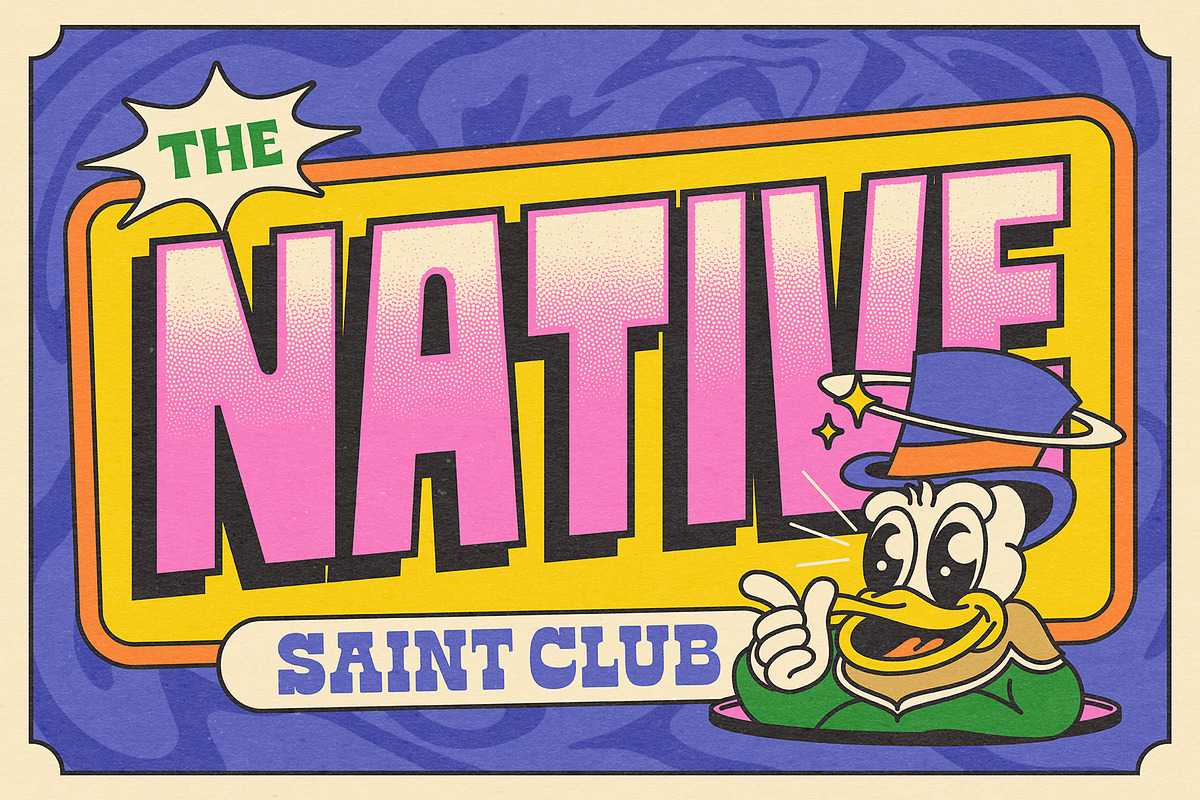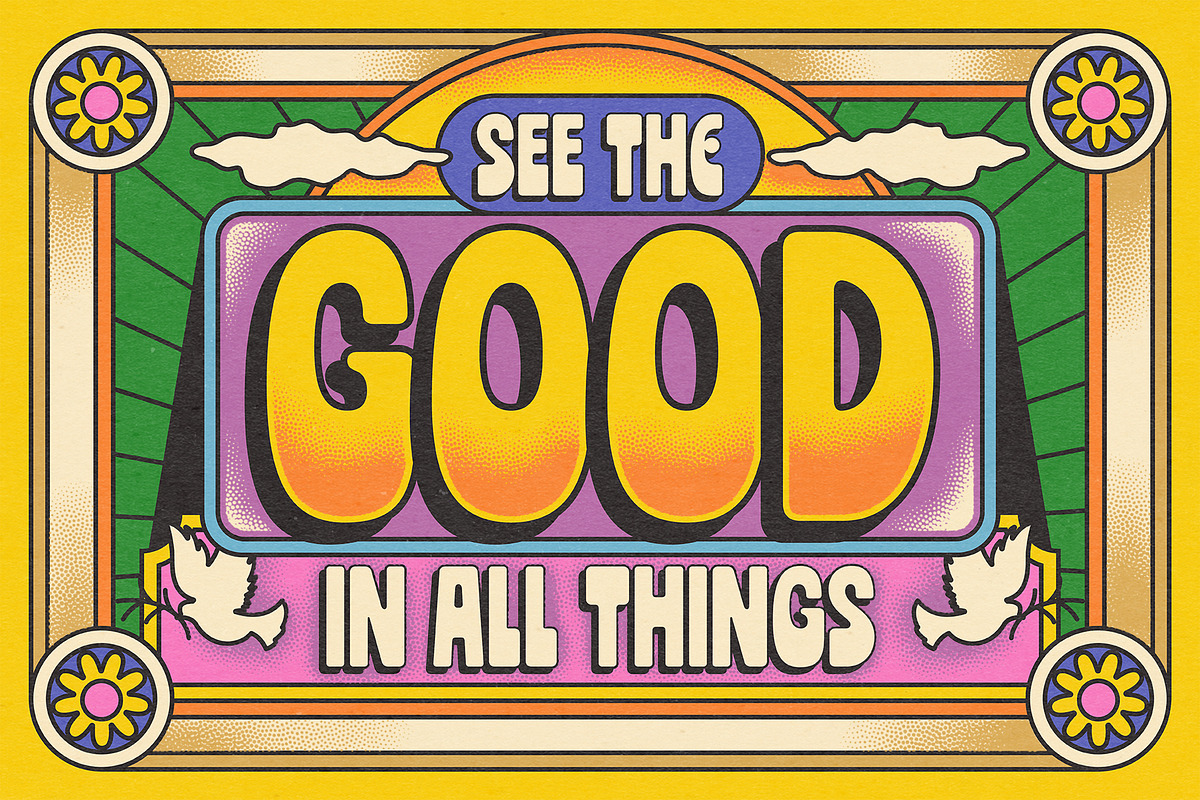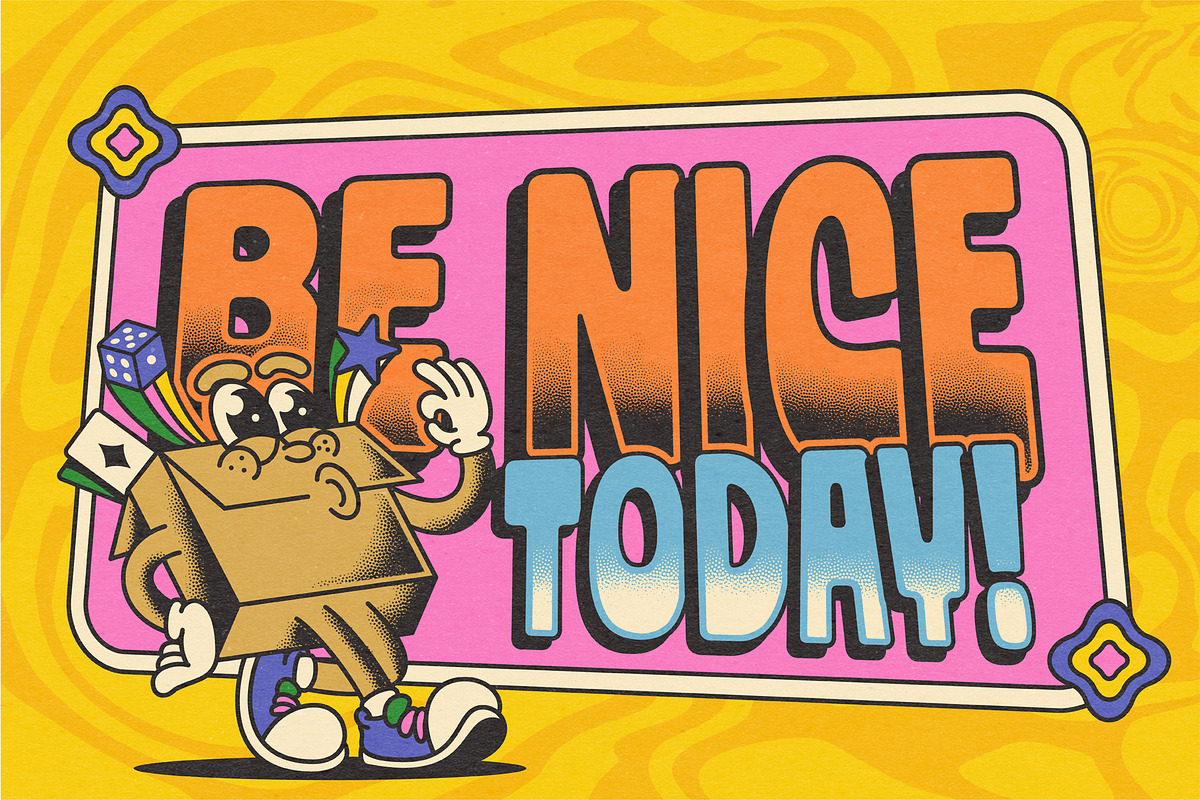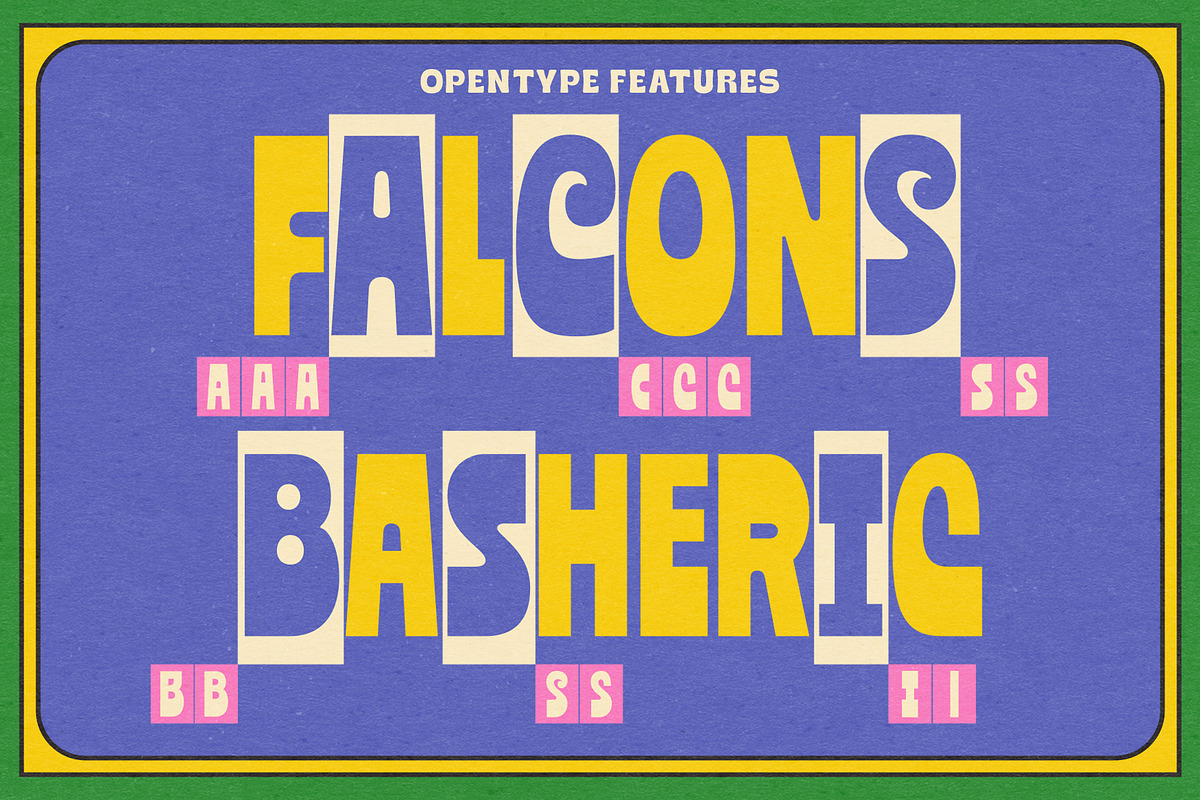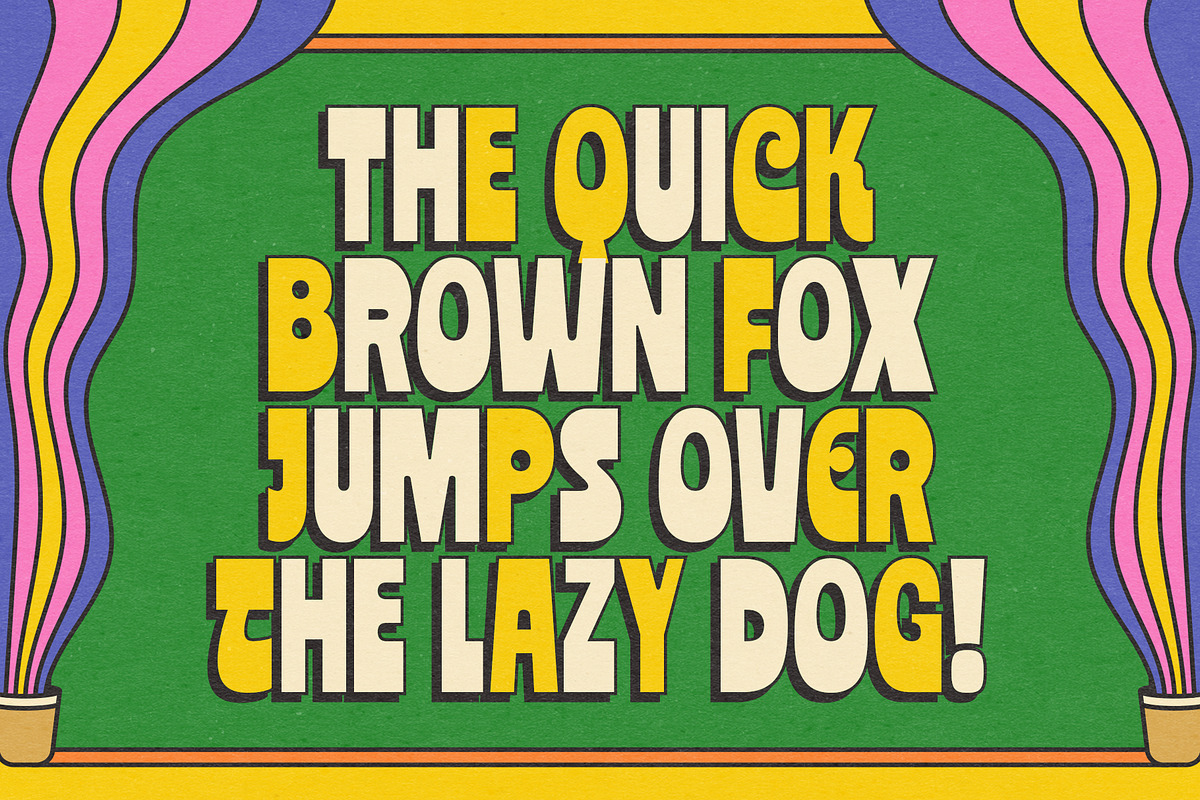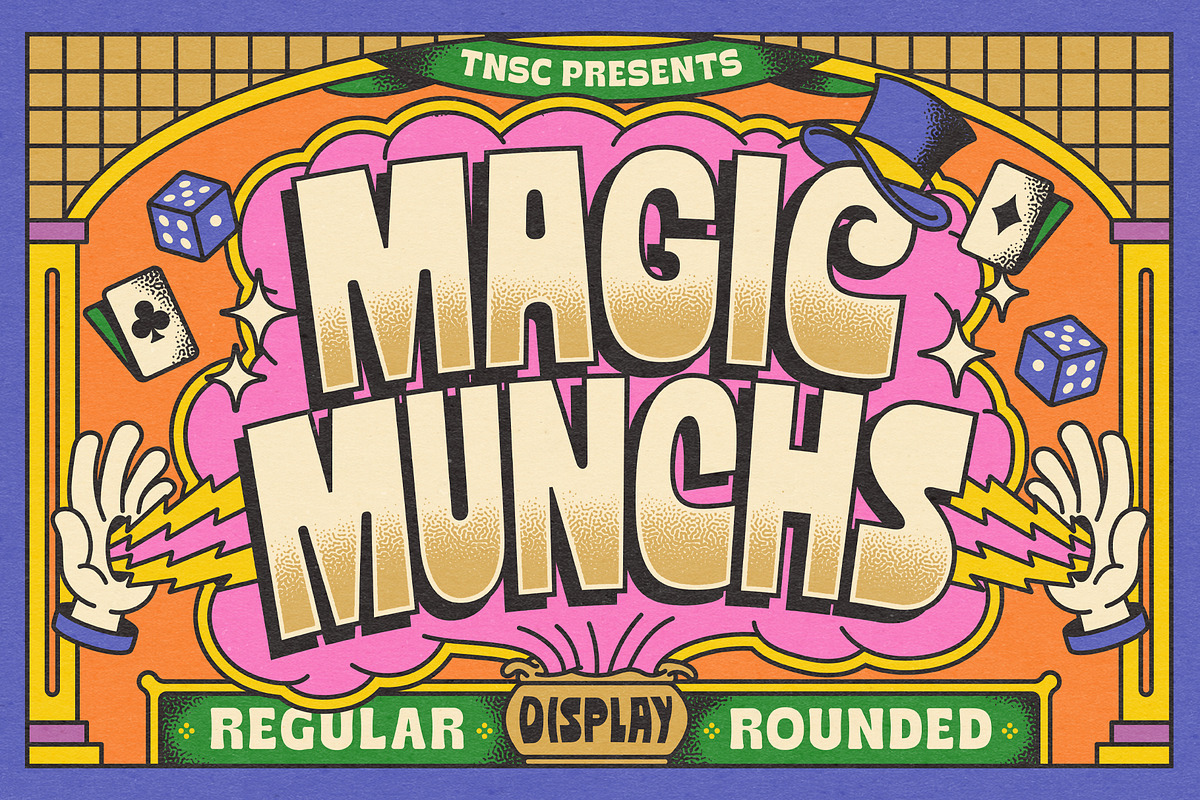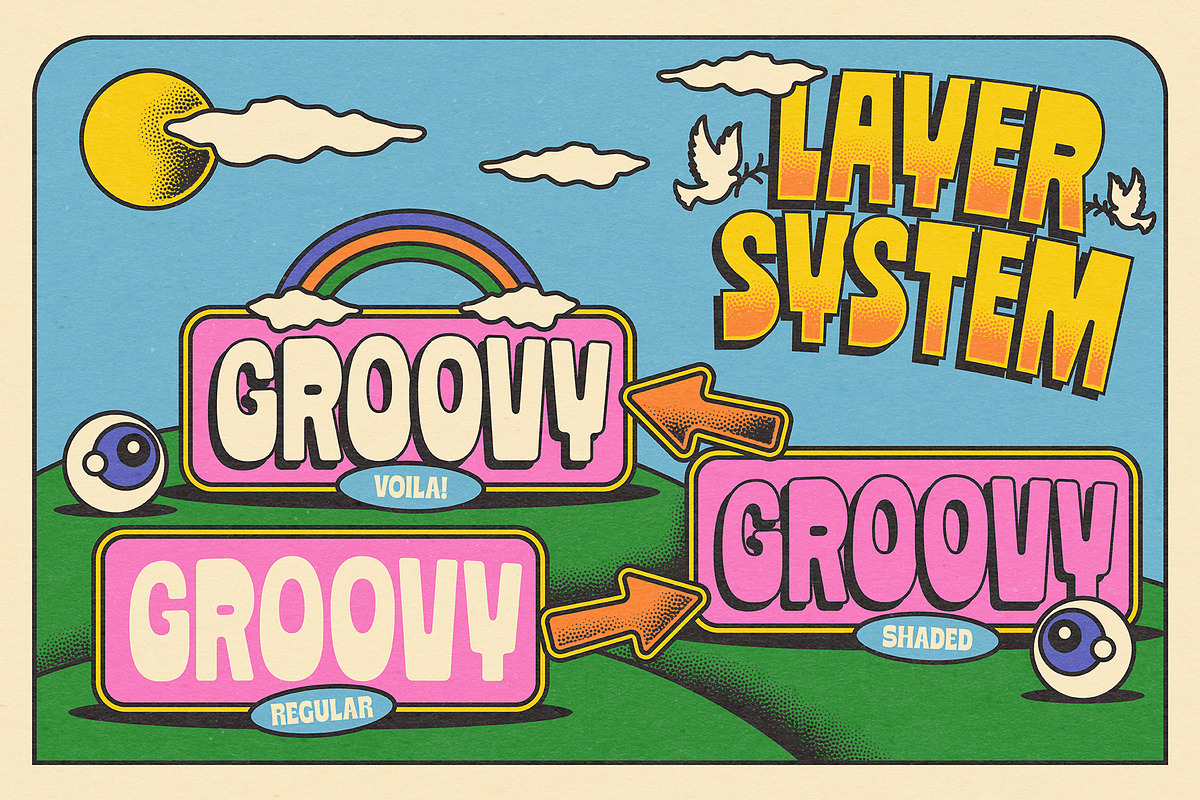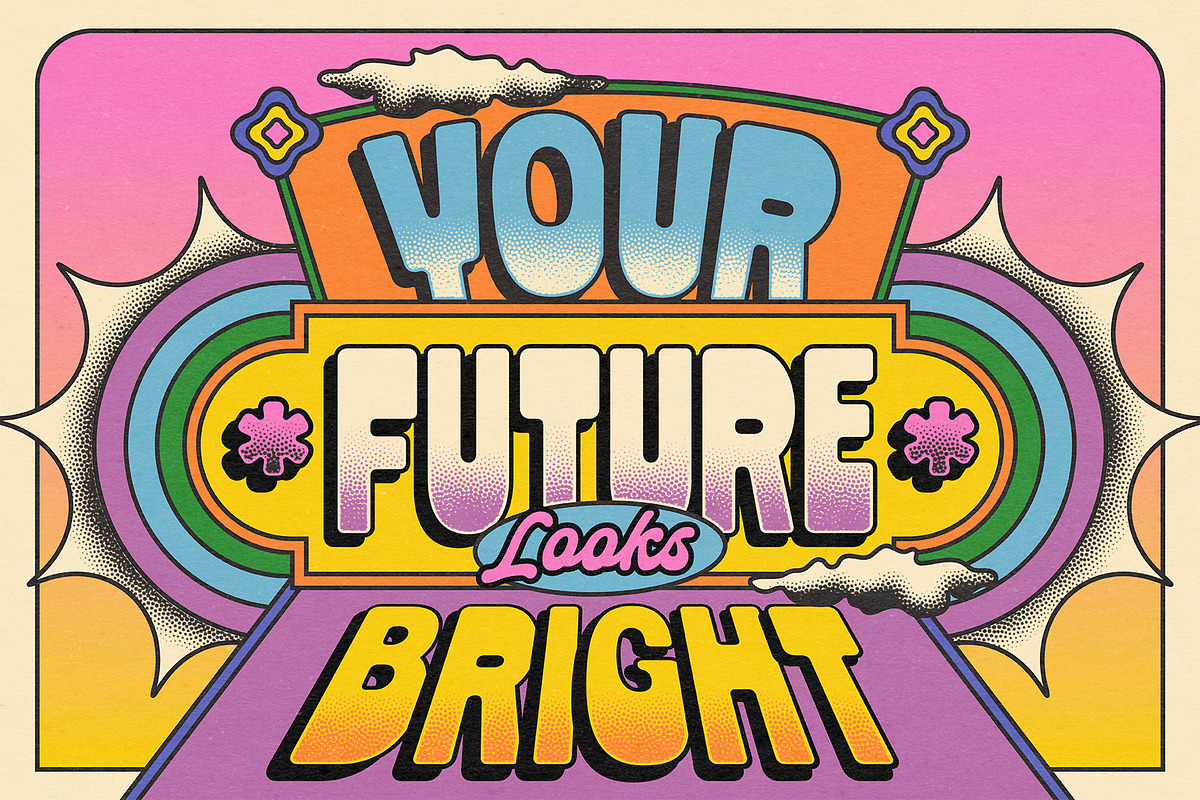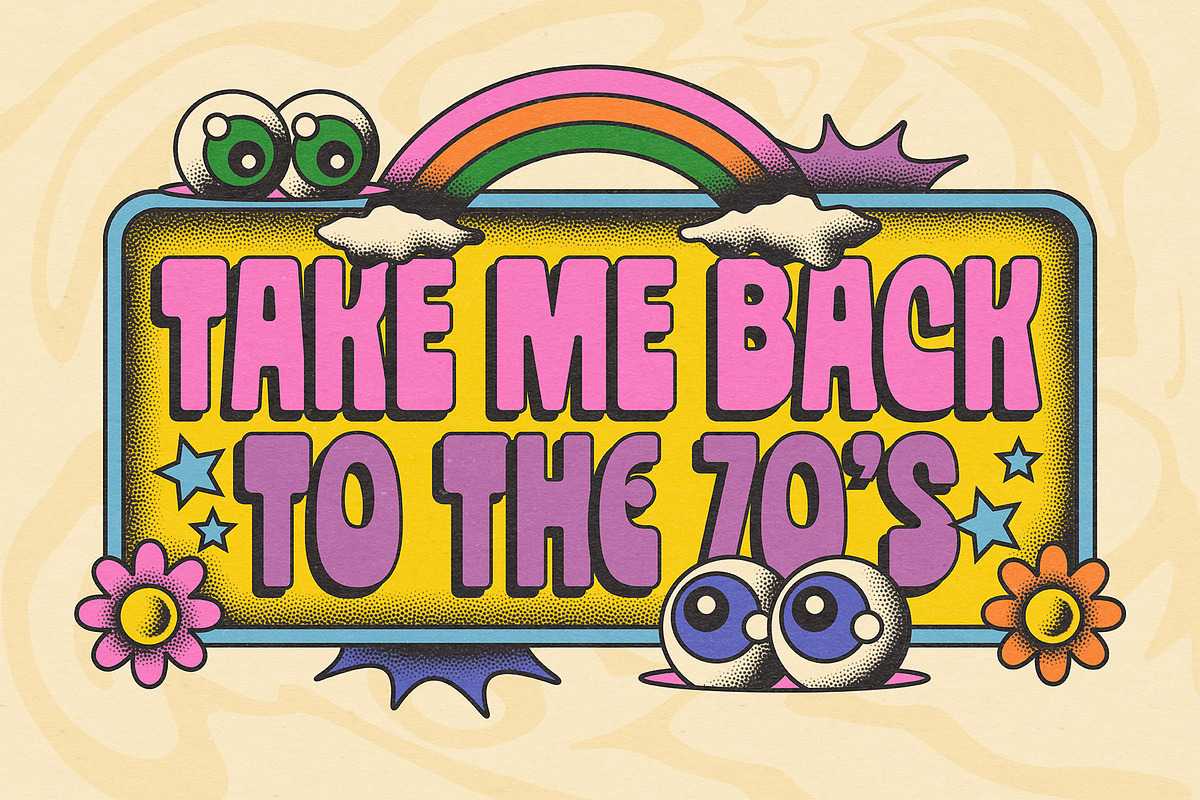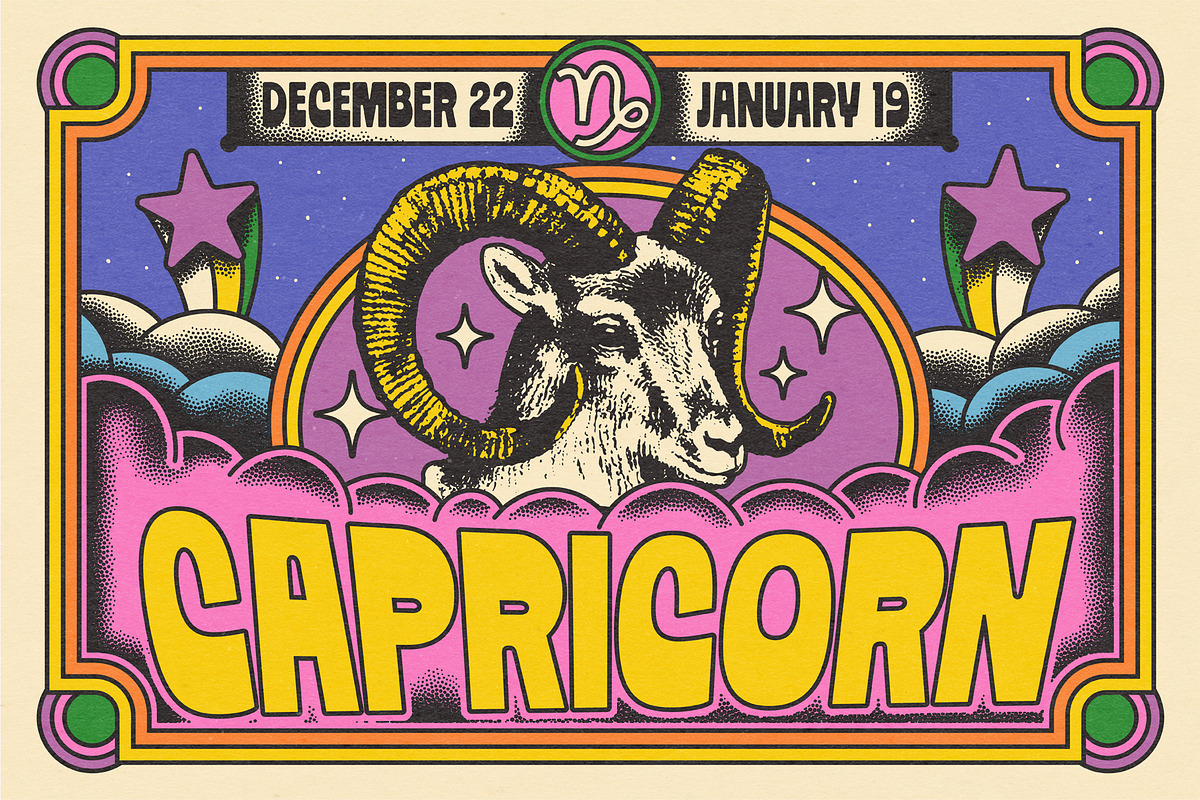
TNSC Magic Munchs - Psychedelic Font
TNSC Magic Munchs is a Retro 70s Psychedelic Display Font. Step into a vibrant time warp with Magic Munchs, a display font that channels the bold, eclectic spirit of the 1970s. Featuring chunky, eye-catching letterforms with a psychedelic twist, this typeface is perfect for creating headlines and designs that demand attention. Magic Munchs blends retro charm with modern flair, making it ideal for projects that seek to capture the groovy essence of the past while maintaining a fresh, contemporary edge. Unleash the magic of the 70s in your designs with Magic Munchs!